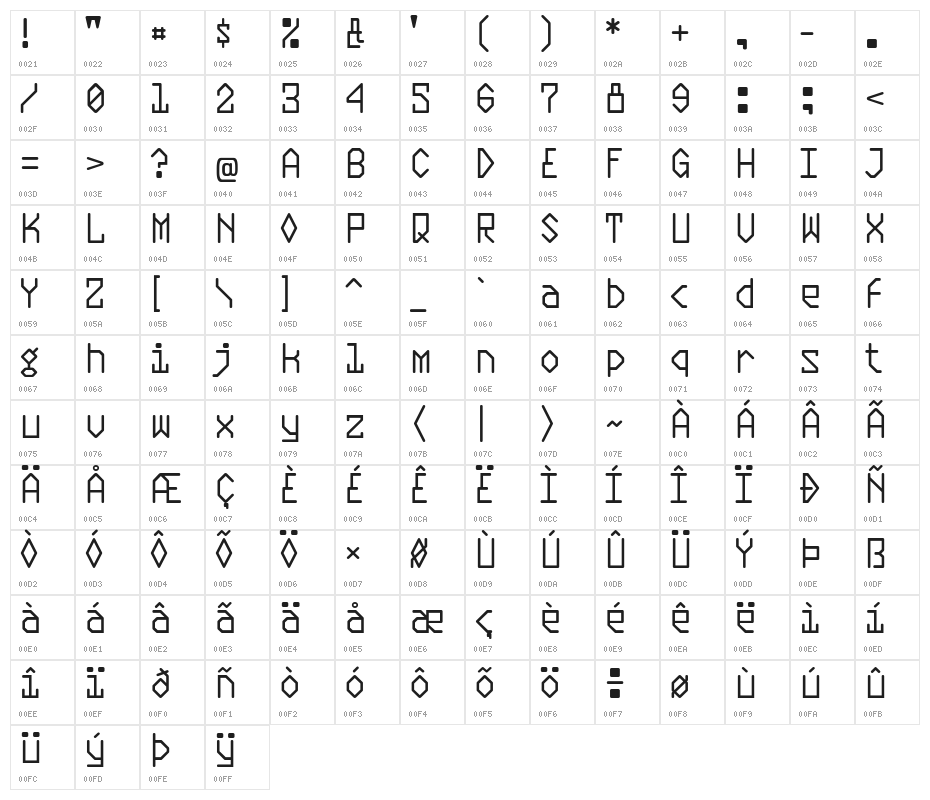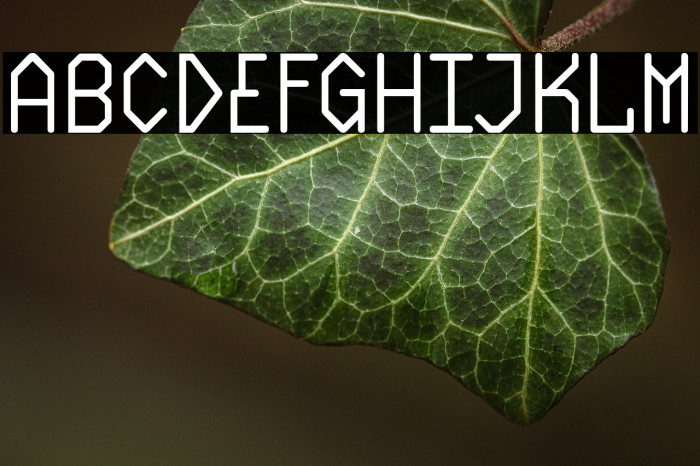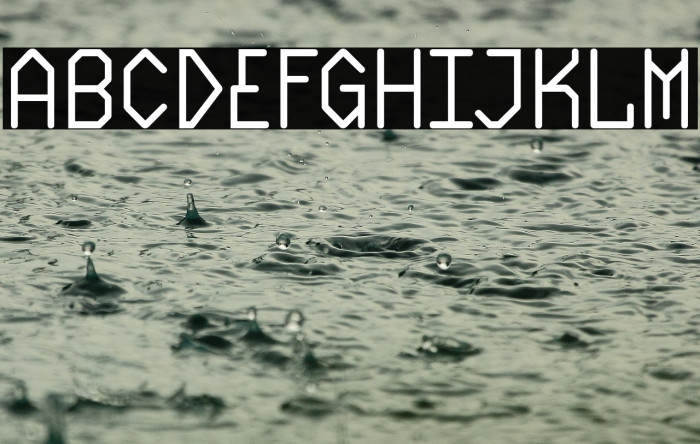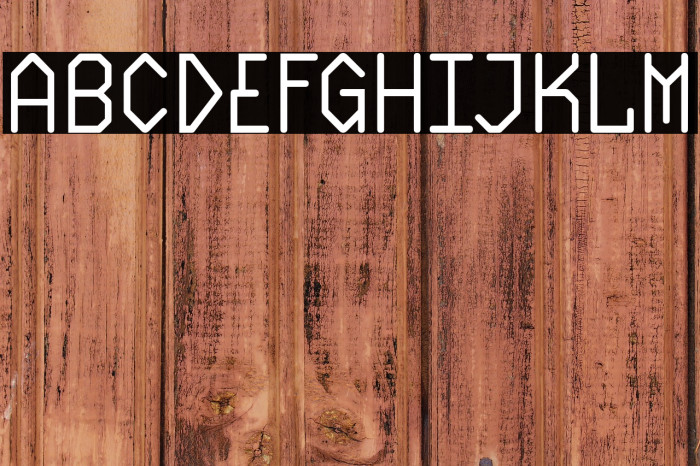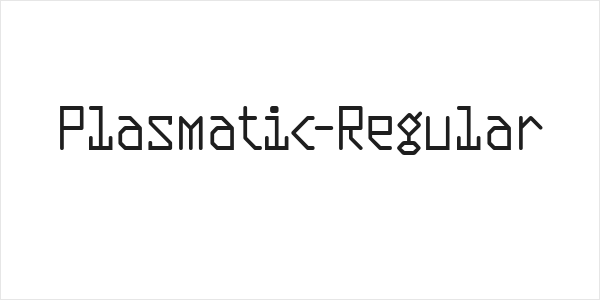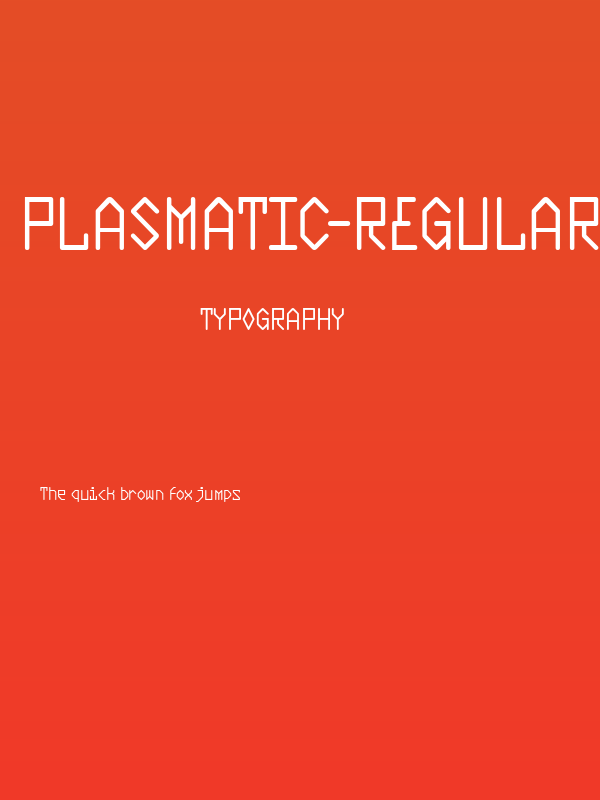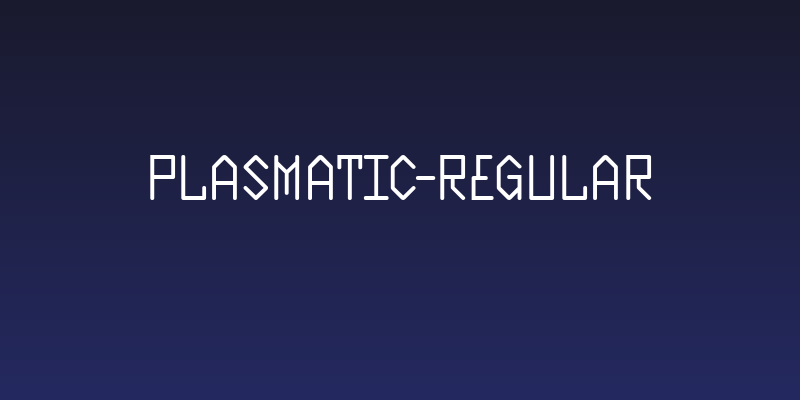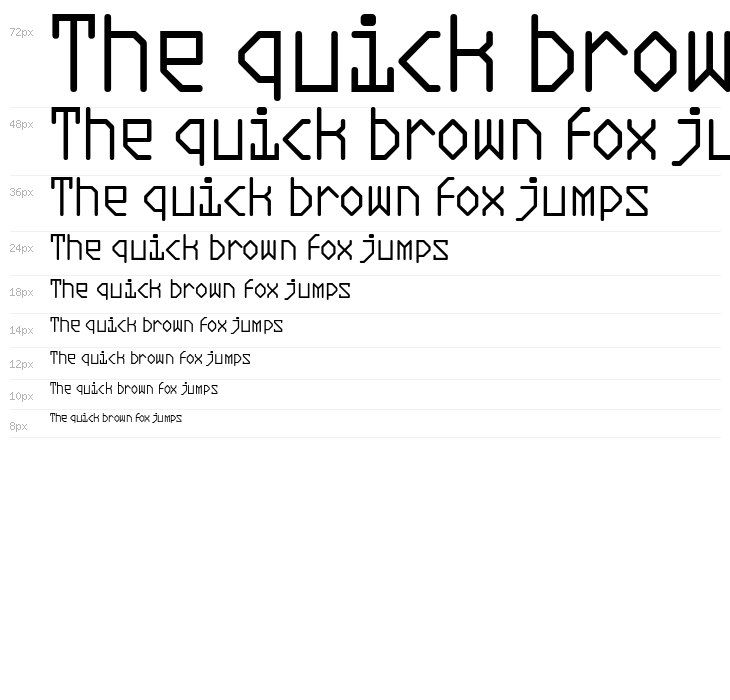
Plasmatic-Regular Font
Plasmatic-Regular Description
This font features a futuristic and geometric design, characterized by its angular and block-like letterforms. The uppercase and lowercase letters share a consistent style, with sharp edges and a uniform stroke width that gives it a modern, technical appearance. The numerals and special characters maintain this aesthetic, making the font suitable for digital and tech-oriented projects. Its distinct and bold presence makes it ideal for attention-grabbing designs, while the clear and legible structure ensures readability.
| Proposed Projects | Ideal for tech branding, digital interfaces, video game graphics, and sci-fi themed designs. |